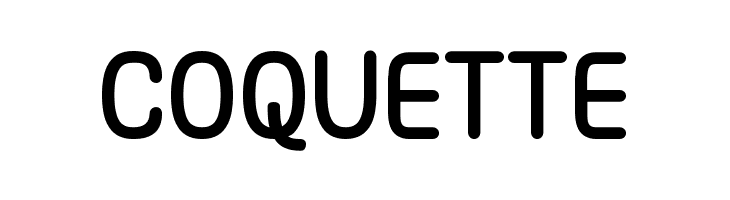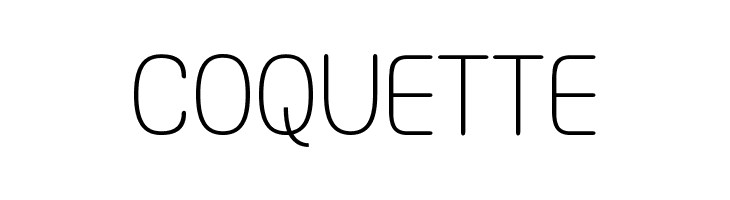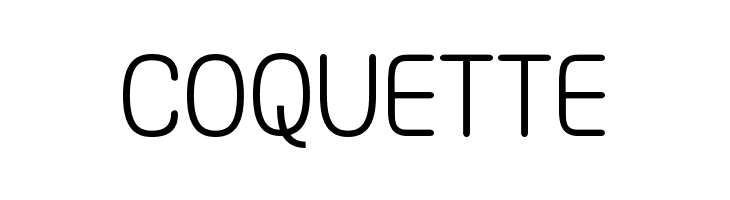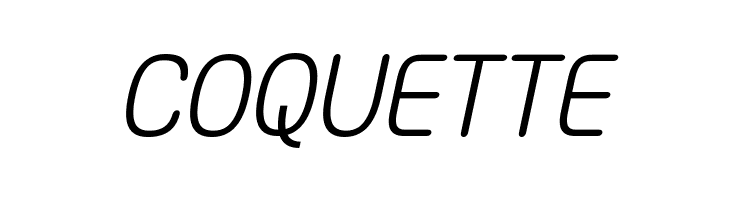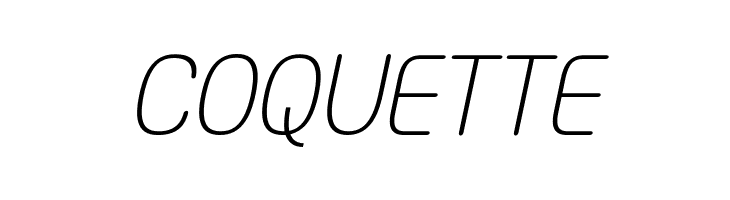
A modern, italicized font with smooth curves and a sleek appearance.
A modern, italic font with rounded, smooth characters and a friendly appearance.
A modern, rounded font with a minimalist and clean design.
A modern, rounded sans-serif font with clean lines and balanced proportions.
A sleek, modern, and italicized font with a light and airy feel.
A modern, light, and italicized font with smooth, rounded edges.
A modern, rounded font with uniform stroke width and excellent readability.
A modern, rounded sans-serif font with smooth curves and consistent stroke width.
A bold, rounded font with smooth curves and a friendly, modern appearance.
A bold, rounded font with smooth curves and uniform strokes.